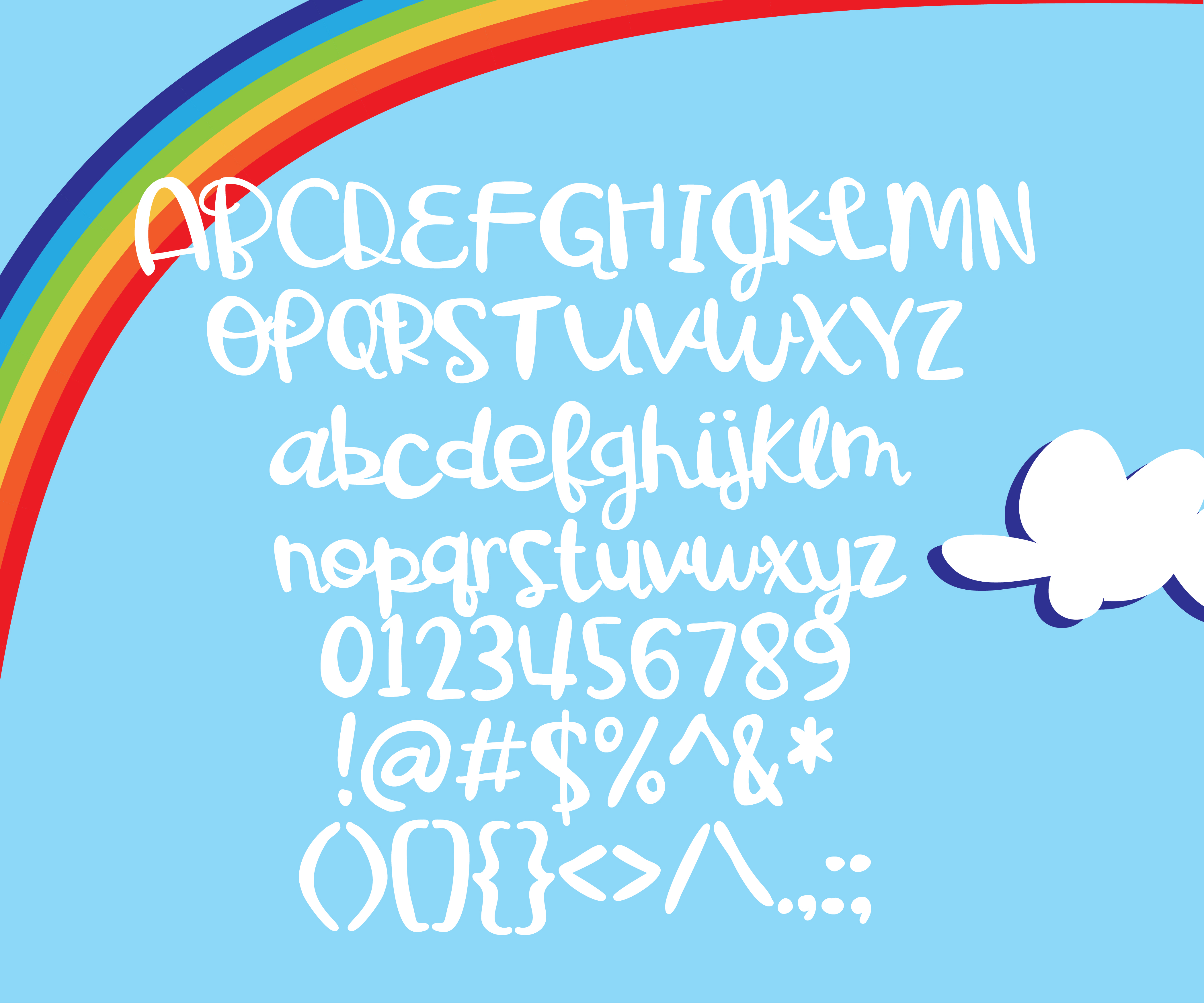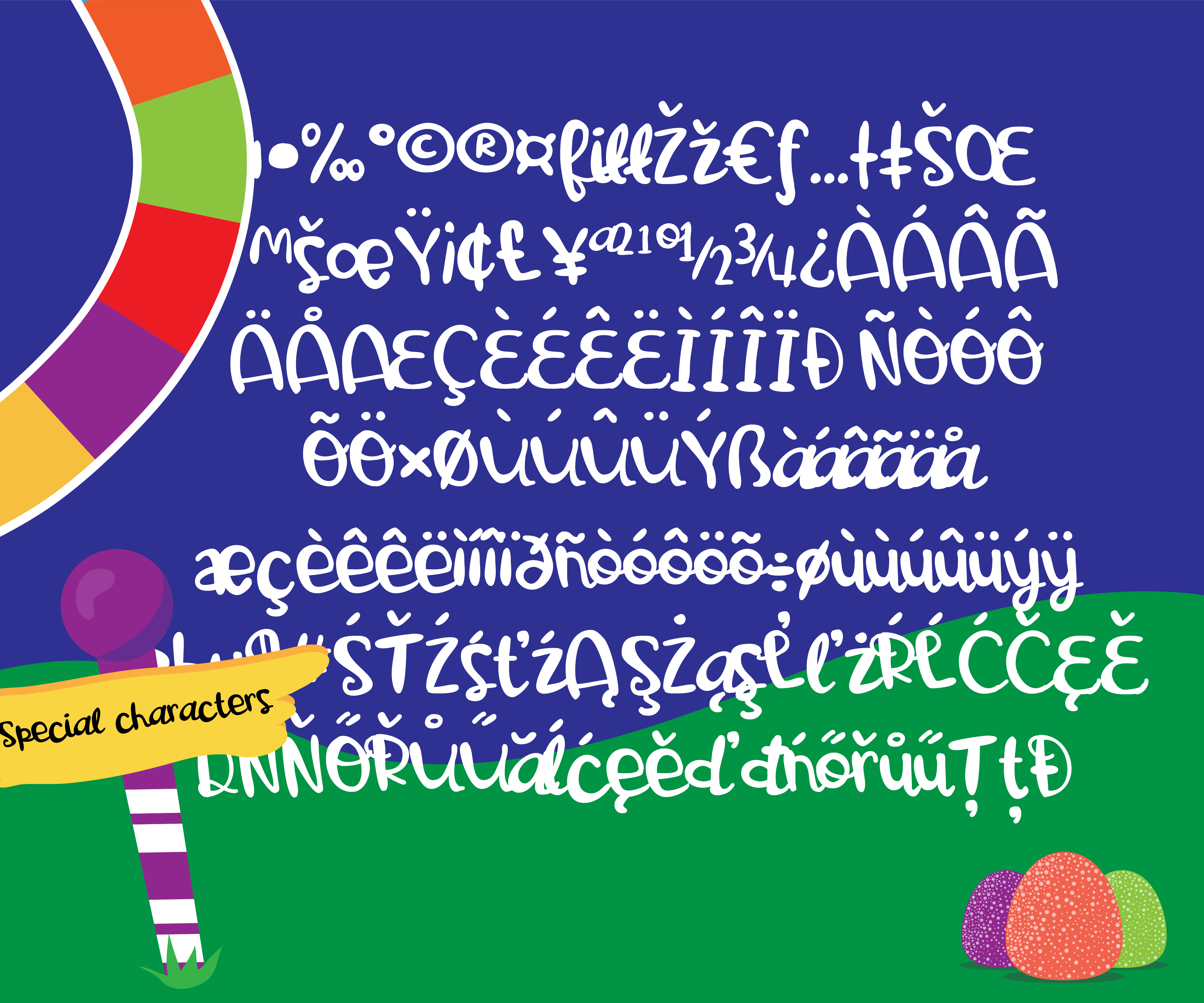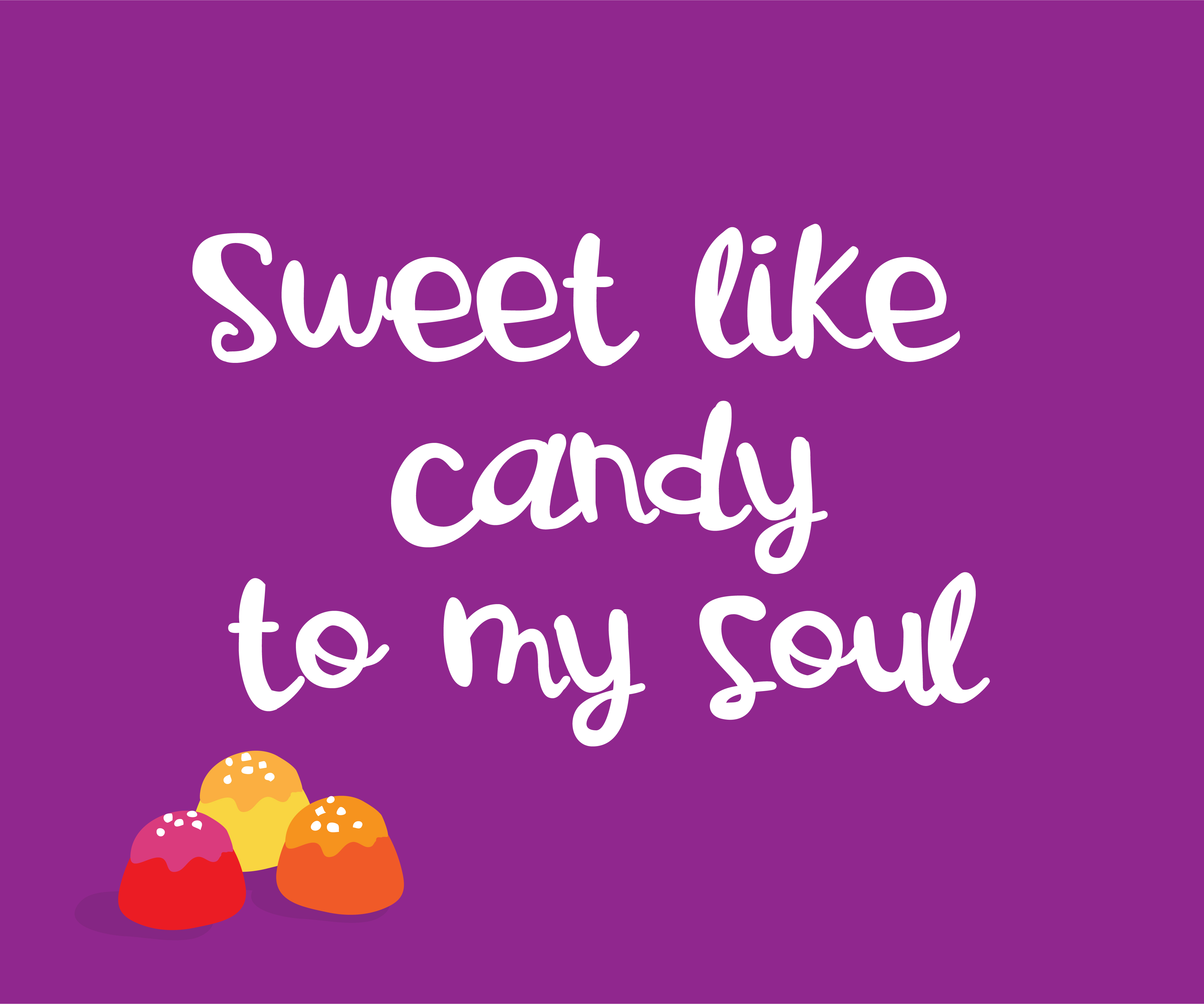
Introduction to Gooey Gumdrops Script Font
Gooey Gumdrops Script is a cute and whimsical script pairs well with it’s sister font, Gooey Gumdrops.
Both fonts add a youthful and fun feel to any project .
Key Features of Gooey Gumdrops Script Font
Why Choose Gooey Gumdrops Script Font?